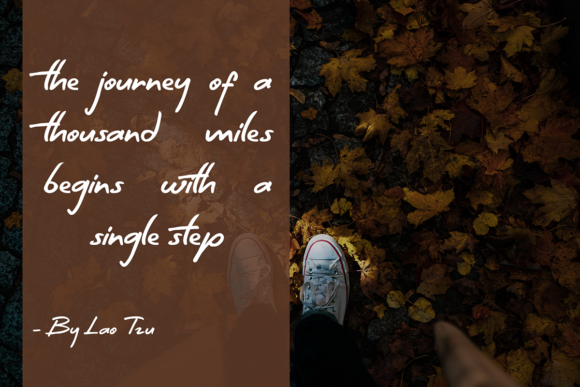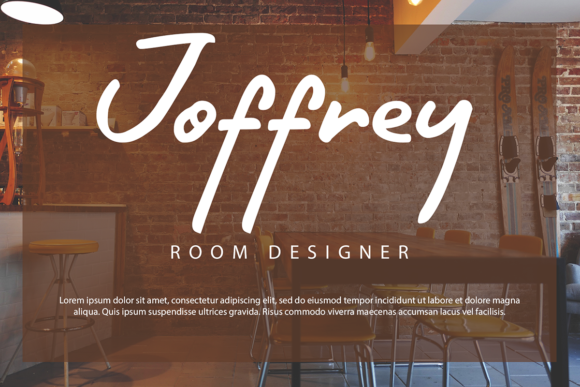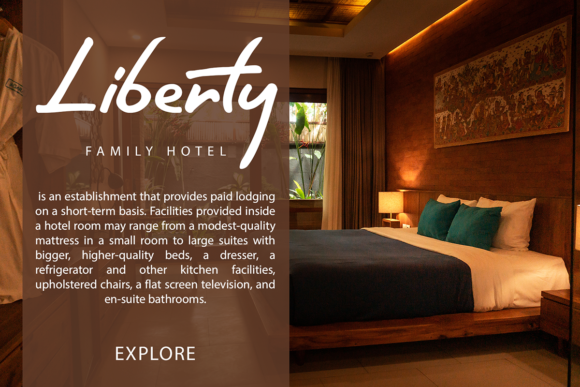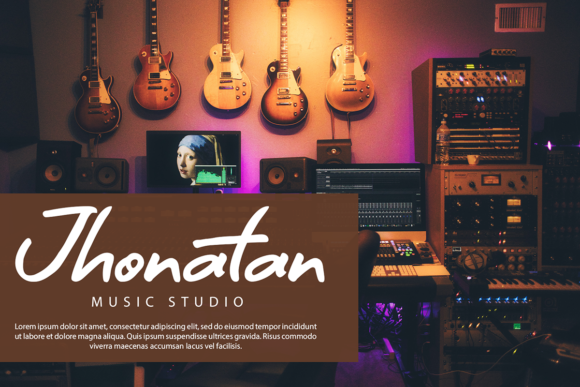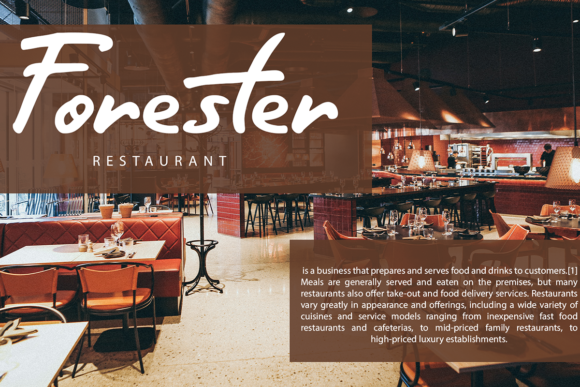
The Perfect Slice of Typography: Introducing Bread Day Font
As designers, we’ve all been there – staring at a blank canvas, trying to bring our creative vision to life. The moment when the perfect font pops into our minds, and we know exactly what our project needs to take off. For many of us, that moment comes when we discover a font that speaks to us, and the Bread Day Font is one such find.
This modern and stylish handwritten font is perfect for adding a personal touch to your brand logos, invitations, greeting cards, or any other project that requires a touch of elegance. With its multilingual features and style variations, the Bread Day Font is a valuable addition to any designer’s toolkit, allowing you to elevate the aesthetic of your work and connect with your audience on a deeper level.
Bread Day Font Key Features
- Font Family: Bread Day is a unique, handwritten font designed to evoke a sense of warmth and comfort.
- Font Size: Bread Day is available in 8 font sizes, ranging from 8pt to 120pt, allowing for flexibility in design applications.
- Resolution: Designed for high-resolution displays, Bread Day font looks great at resolutions up to 300 DPI.
- Unique Characteristics: Features a mix of cursive and script elements, with a touch of imperfection to give it a handmade feel.
- Font Weight: Available in 5 font weights, from Light to Bold, allowing for a range of design possibilities.
Bread Day Font Review
I recently had the chance to work with the Bread Day Font, and I must say, it’s a font that will catch your eye. Here are my thoughts on what works well and what doesn’t:
✨ What works well:
- The Bread Day Font has a unique and playful vibe that’s perfect for projects that need a touch of whimsy.
- The font is highly legible, even at smaller sizes, making it great for body text or headlines.
- The font includes a wide range of glyphs, including ligatures, swashes, and alternates, which adds to its charm.
⚠️ Limitations:
- The font can be a bit overwhelming if used extensively. Its playful nature can quickly become too much.
- The font is not suitable for formal or professional projects, as its tone is too casual.
- The font may not be compatible with all systems or devices, which can lead to rendering issues.
Overall, I think the Bread Day Font is a great addition to any designer’s toolbox. It’s perfect for projects that need a touch of personality and whimsy. However, it’s essential to use it judiciously to avoid overwhelming the design. With some restraint, the Bread Day Font can add a delightful touch to your projects.
The Bread Day Font is perfect for:
- Creative project titles and headings.
- Brand logos and identity.
- Food-related designs and packaging.
Remember to adjust the font size and style to ensure it’s legible and visually appealing.
Alternatives to Bread Day Font
Great Vibes is a beautiful, elegant script font that is perfect for creating a warm and inviting atmosphere. It is ideal for use in wedding invitations, greeting cards, and other personal events where a touch of romance is desired. Compared to Bread Day Font, Great Vibes has a more refined and sophisticated look, making it suitable for more formal occasions.
Carolyna Pro is a modern and stylish script font that is perfect for creating a trendy and sophisticated look. It is ideal for use in fashion magazines, advertisements, and other design projects where a touch of luxury is desired. Compared to Bread Day Font, Carolyna Pro has a more contemporary feel and is more versatile in its usage.
Lovelo
Lovelo is a beautiful, handwritten font that is perfect for creating a personal and emotional connection with the audience. It is ideal for use in social media posts, blog posts, and other design projects where a touch of warmth and personality is desired. Compared to Bread Day Font, Lovelo has a more casual and relaxed feel, making it suitable for more informal occasions.